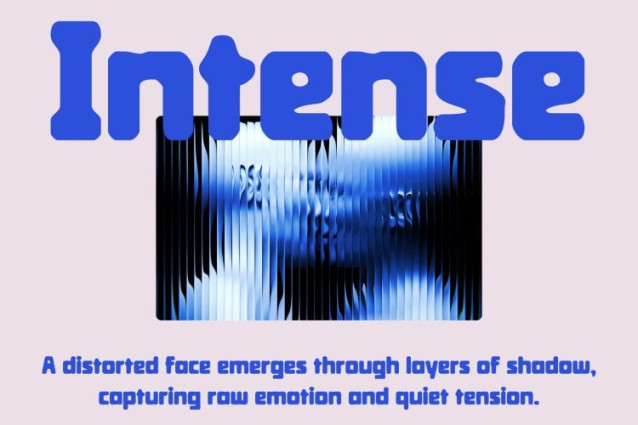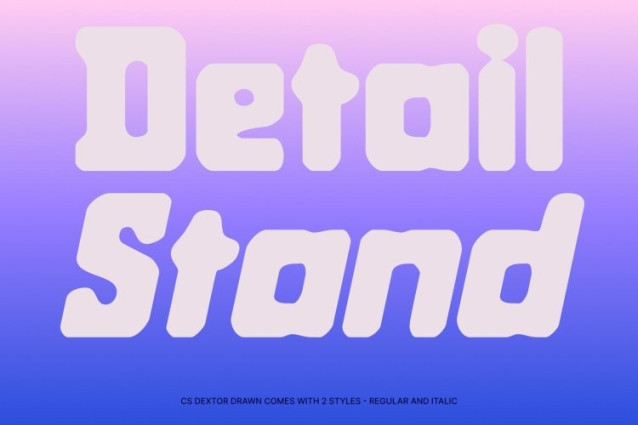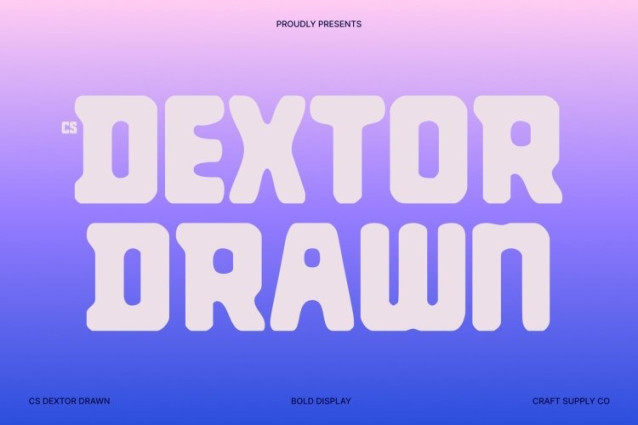
CS Dextor Drawn Font
CS Dextor Drawn Font This is a bold sans serif display font designed to make a statement. Its thick, solid shapes convey confidence and authority, while the drawn effect introduces a natural, handcrafted texture that adds personality and uniqueness to every character. Perfect for projects that demand both presence and originality.
Rounded Geometry for Approachable Style
The soft, rounded edges balance the font’s bold weight, creating a modern, friendly tone. This combination of strength and warmth makes it ideal for headlines, posters, logos, and branding projects where impact and readability are equally important.
Maximum Visibility with Handcrafted Charm
Thick strokes and clean geometric construction ensure clarity at large sizes, while the hand-drawn details bring subtle imperfection and energy. The result is a display font that’s commanding, legible, and full of distinctive character.
Versatile for Creative and Professional Use
This font adapts seamlessly across digital and print media, from corporate branding and promotional campaigns to creative editorial layouts. It delivers bold, contemporary typography with a human touch, giving every design a confident yet approachable voice.